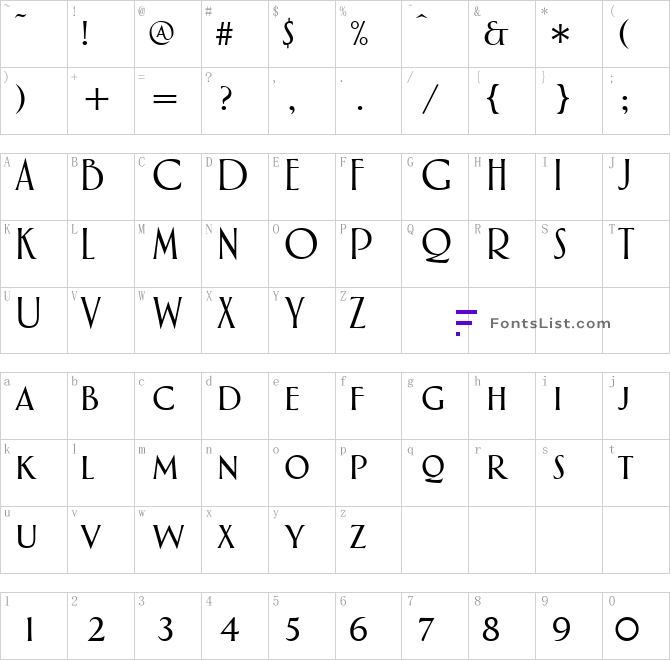
- Font Name:Aphasia BT
Aphasia-BT-Roman.ttf is a very beautiful artistic font, Aphasia-BT-Roman.ttf is widely used in the design and printing of various books and pictures,Aphasia-BT-Roman.ttf has a strong visual impact,Aphasia-BT-Roman.ttf is a commonly used font in newspapers, magazines and books, and is used in posters, e-commerce Poster design, store design, logo design, font design and other fields.Aphasia-BT-Roman.